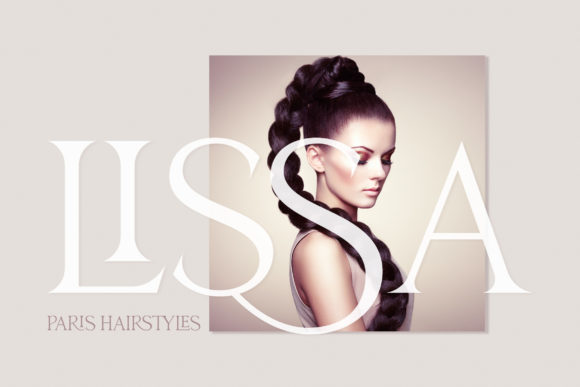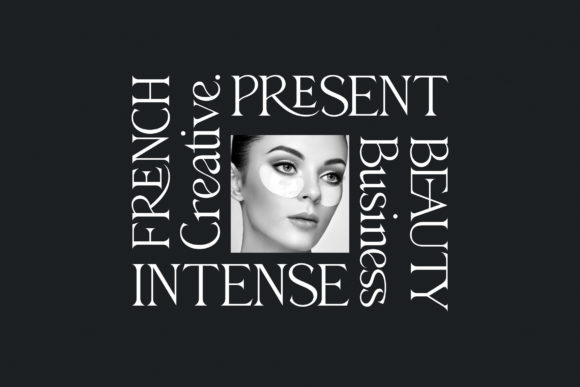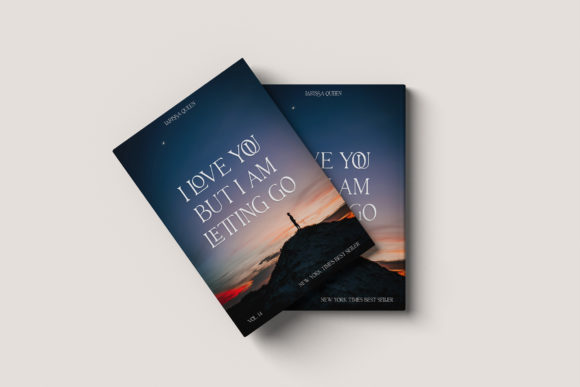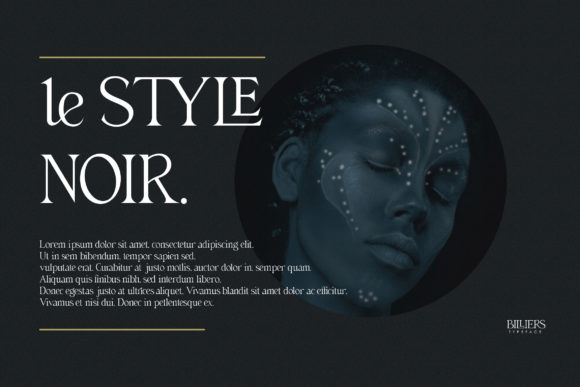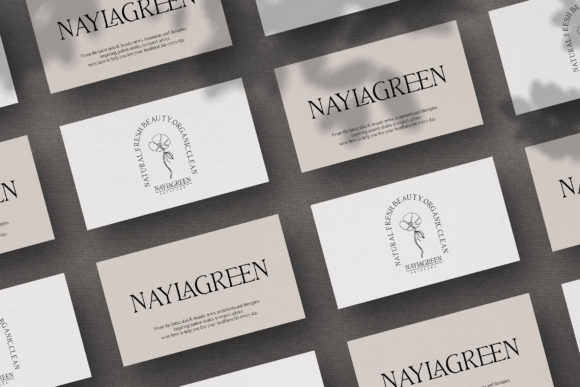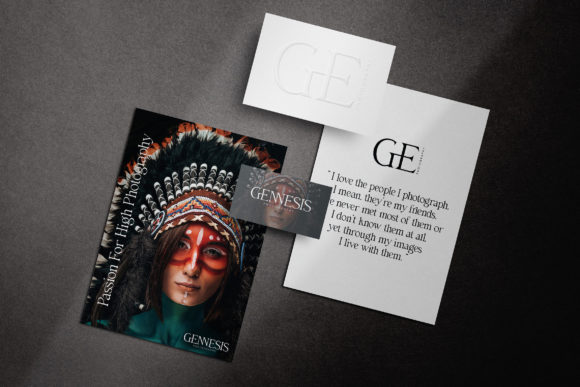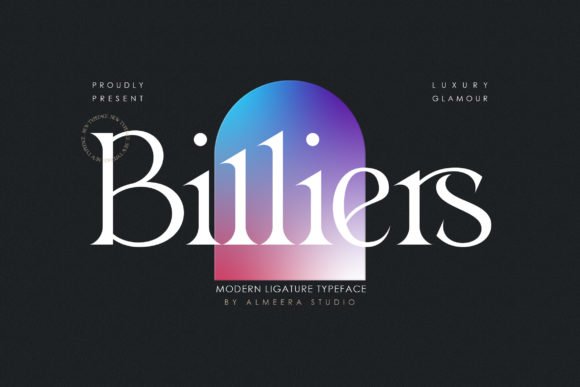
Discover the Perfect Font for Your Next Creative Project
Have you ever stared at a blank design canvas, desperately searching for the perfect font to bring your vision to life? We’ve all been there. The font you choose can make or break the entire aesthetic of your project. And that’s exactly why we’re excited to introduce you to Billiers Font – a stunning serif font that’s sure to elevate your designs.
Billed as an authentic and assertive serif font, Billiers Font is perfect for fashion branding or editorial designs where you want to make a bold statement. Its versatility and classic feel make it an invaluable addition to any designer’s toolkit.
Adding Billiers Font to your projects can be the secret ingredient that takes your designs from good to great. With its timeless charm and sophistication, you’ll be sure to love the results. So why wait? Give Billiers Font a try and discover a new level of creative excellence.
Billiers Font Key Features
- Font Size: The font comes in a single weight, but it’s highly versatile and can be used at various font sizes, from 10pt to 24pt.
- Resolution: The font is designed for high-resolution displays, with a recommended resolution of 300 DPI or higher.
- Unique Characteristics: Billiers Font features a unique, hand-drawn design with intricate details and subtle texture, giving it a distinctive and elegant look.
Billiers Font Review
Overall, I think Billiers is a solid font choice for various design projects. ✨ Its elegant and classic feel makes it suitable for high-end branding, luxury products, and even elegant website designs. The font’s curves and rounded edges evoke a sense of sophistication and refinement, which is perfect for creating a premium look and feel.
Some of the things that work well with Billiers include:
- ✨ Elegant and sophisticated design: The font’s curves and rounded edges make it perfect for creating a premium look and feel.
- ✨ Versatile: Billiers can be used for various design projects, from branding to website design.
- ✨ High-end feel: The font’s classic and elegant design makes it suitable for high-end branding and luxury products.
- ⚠️ Limited versatility in digital use: While Billiers works well for print design, it may not be the best choice for digital use, as it can be difficult to read at smaller font sizes.
- ⚠️ Limited font weight options: Billiers only comes in a few font weights, which may limit its use in certain design projects.
Overall, I think Billiers is a great font choice for designers looking to create a sophisticated and elegant look and feel. However, it’s essential to consider its limitations and use it in the right context to get the best results.
Tips for Getting the Most Out of Billiers Font
Billiers Font is a versatile font that works well in a variety of contexts. Here are a few tips for getting the most out of it:
- Use Billiers Font in combination with bold or italic text to add emphasis.
- Use Billiers Font in conjunction with other fonts to create a unique and eye-catching visual identity.